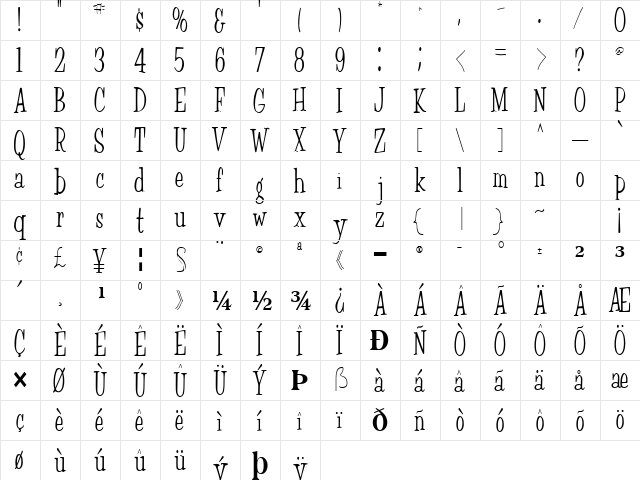
Fair Regular Font Preview
Fair Regular
Fair Regular Font Details
Design Context for Fair Typeface
Fair offers clean, dependable letterforms without strong stylistic allegiance, making it a practical choice for designers who need flexibility.